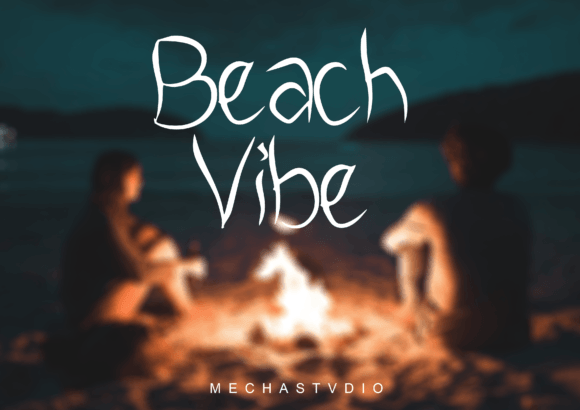
Pitta Font
About Pitta Font
Pitta is a simple and clean handwritten font that embodies elegance and versatility. Its effortless charm and clarity make it an excellent choice for a wide array of design applications, including logos, branding, stationery, wedding designs, social media posts, and much more. With its timeless appeal and understated style, Pitta seamlessly integrates into various design contexts, adding a touch of sophistication to your creative projects.
One of the standout features of Pitta is its simplicity. The font’s clean lines and clear letterforms make it highly readable, ensuring that your message is communicated effectively. Whether you’re designing a minimalistic logo, crafting elegant wedding invitations, or creating professional branding materials, Pitta adds a sense of refinement to your designs with its straightforward and clean handwritten style.
Pitta’s versatility allows it to adapt to different design elements and aesthetics. Its understated elegance makes it suitable for both formal and informal projects, providing you with the flexibility to use it across a wide range of creative endeavors. Whether you’re working on corporate branding, personal stationery, or social media graphics, Pitta effortlessly elevates your designs, making them visually appealing and aesthetically pleasing.
Incorporating Pitta into your projects not only enhances their visual appeal but also showcases your appreciation for simplicity and good design. Its clean handwritten style makes it a popular choice among designers who seek a font that balances elegance with readability. By adding Pitta to your font library, you’re selecting a font that effortlessly enhances your creative work and quickly becomes a favorite choice.
So, whether you’re designing a polished logo, creating refined wedding stationery, developing professional branding materials, or working on any other creative endeavor, let Pitta be your font of choice. Its simple and clean handwritten design empowers you to create designs that exude sophistication and clarity. Embrace the elegance of Pitta and watch your projects come to life with a touch of timeless simplicity and understated charm.